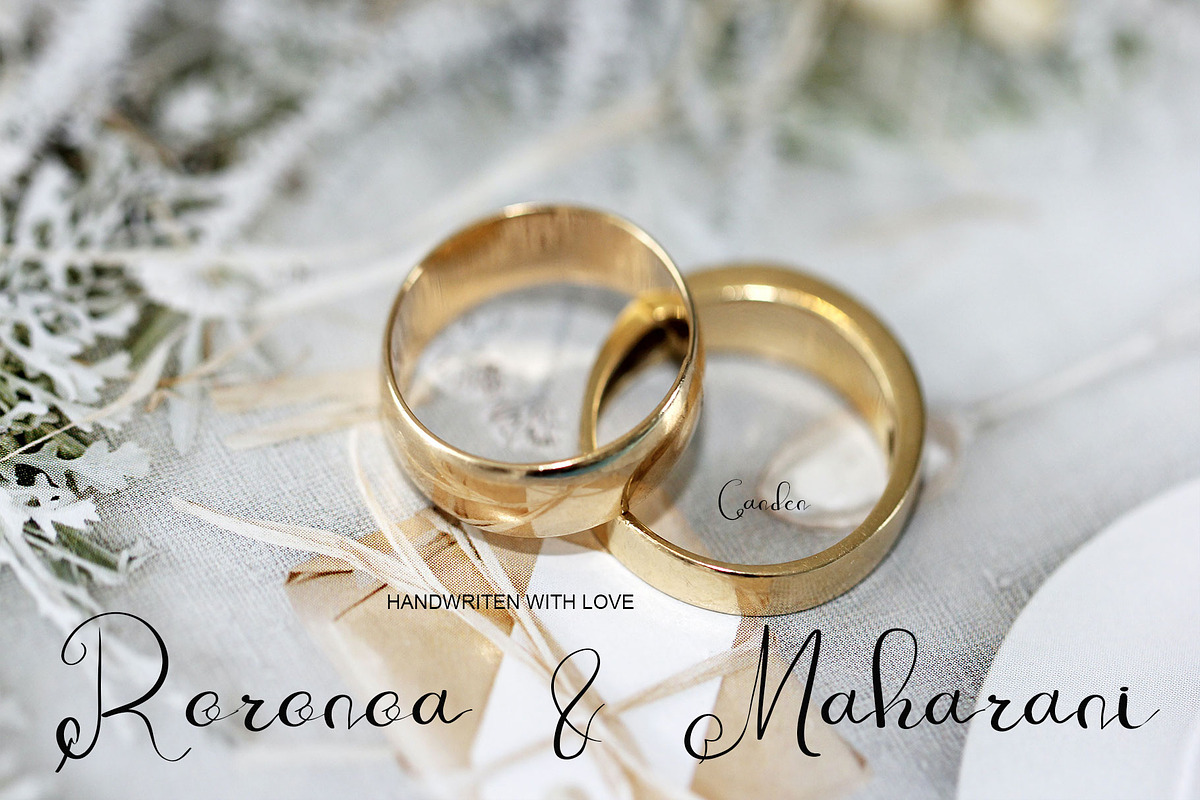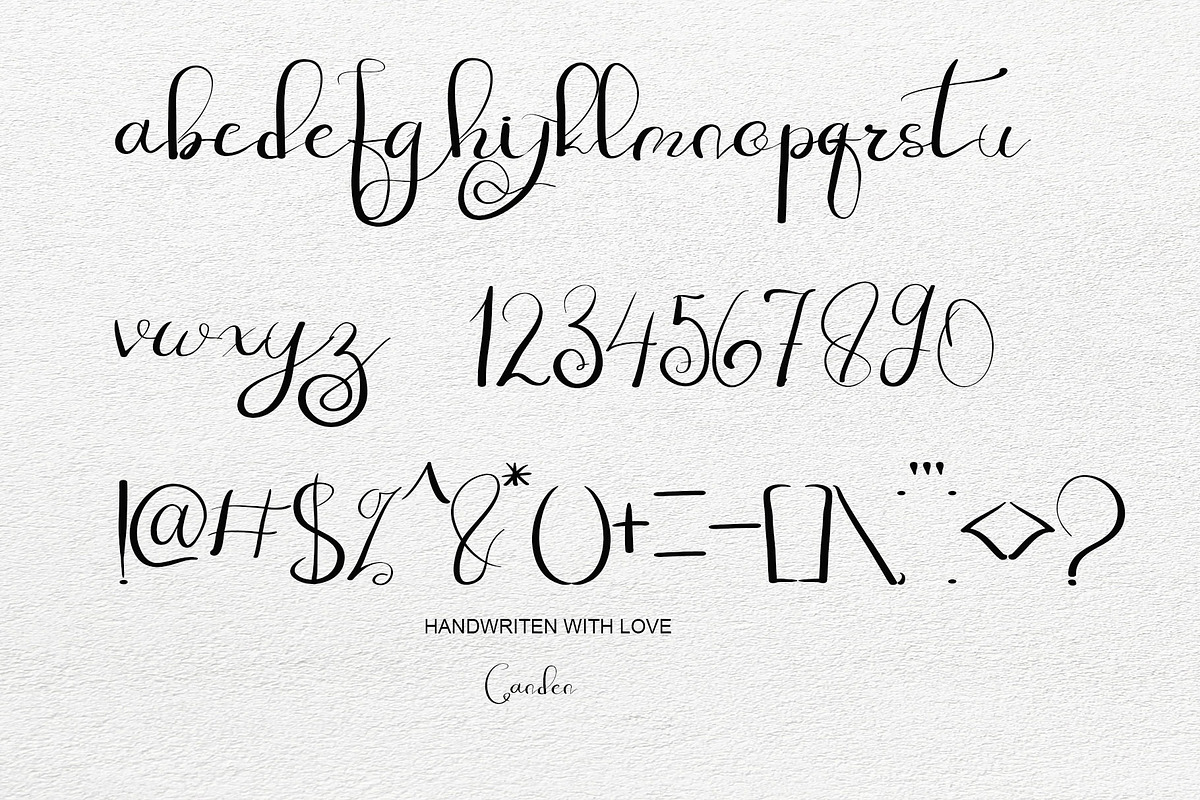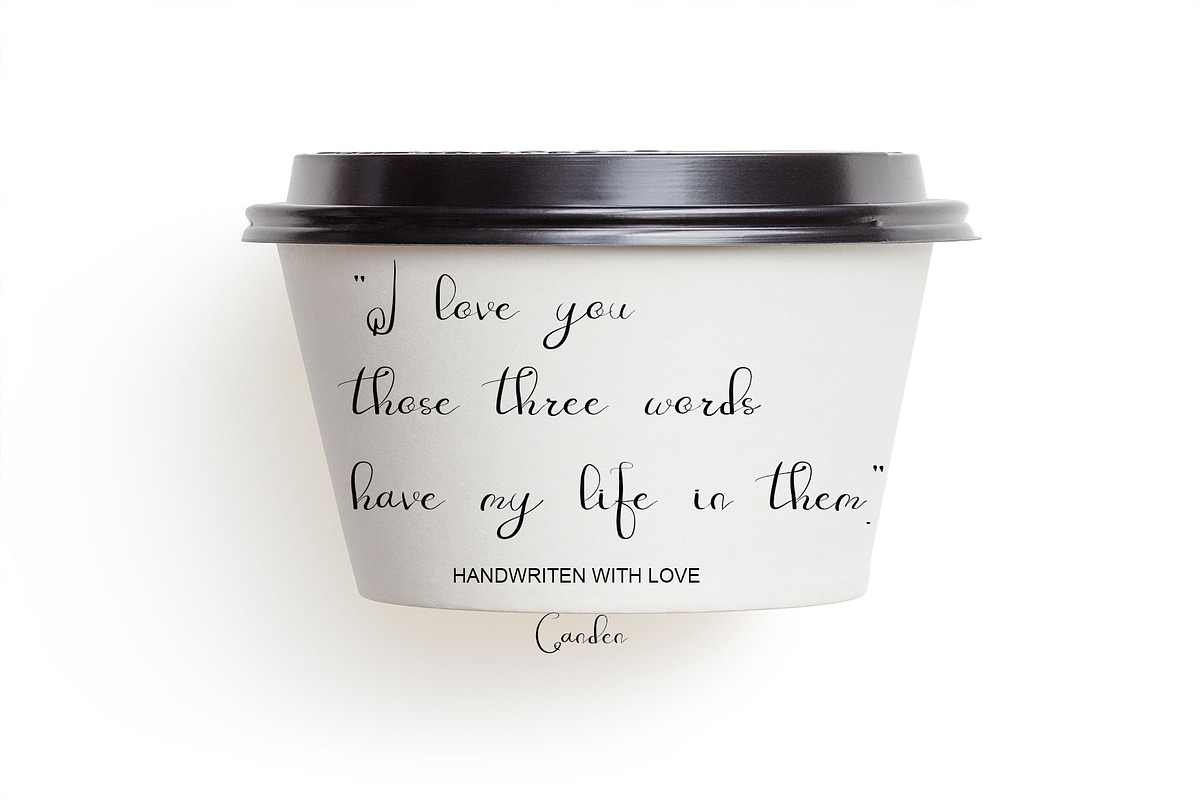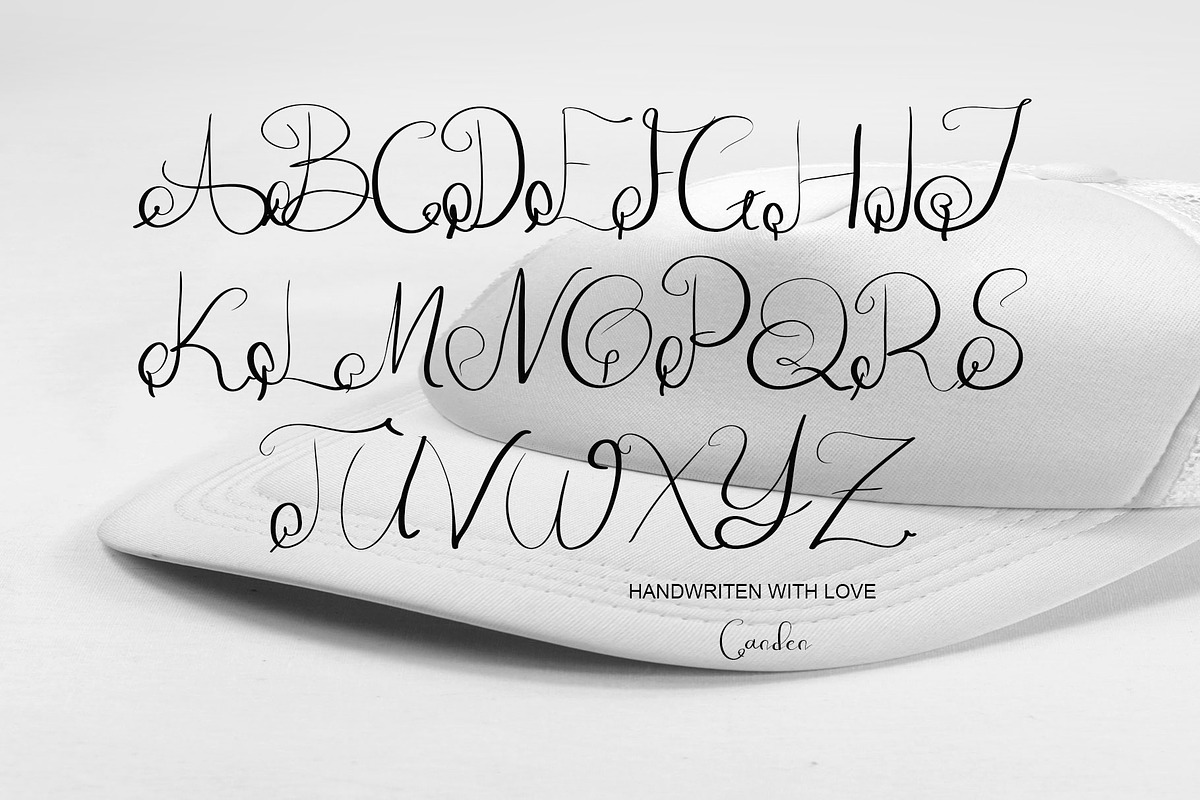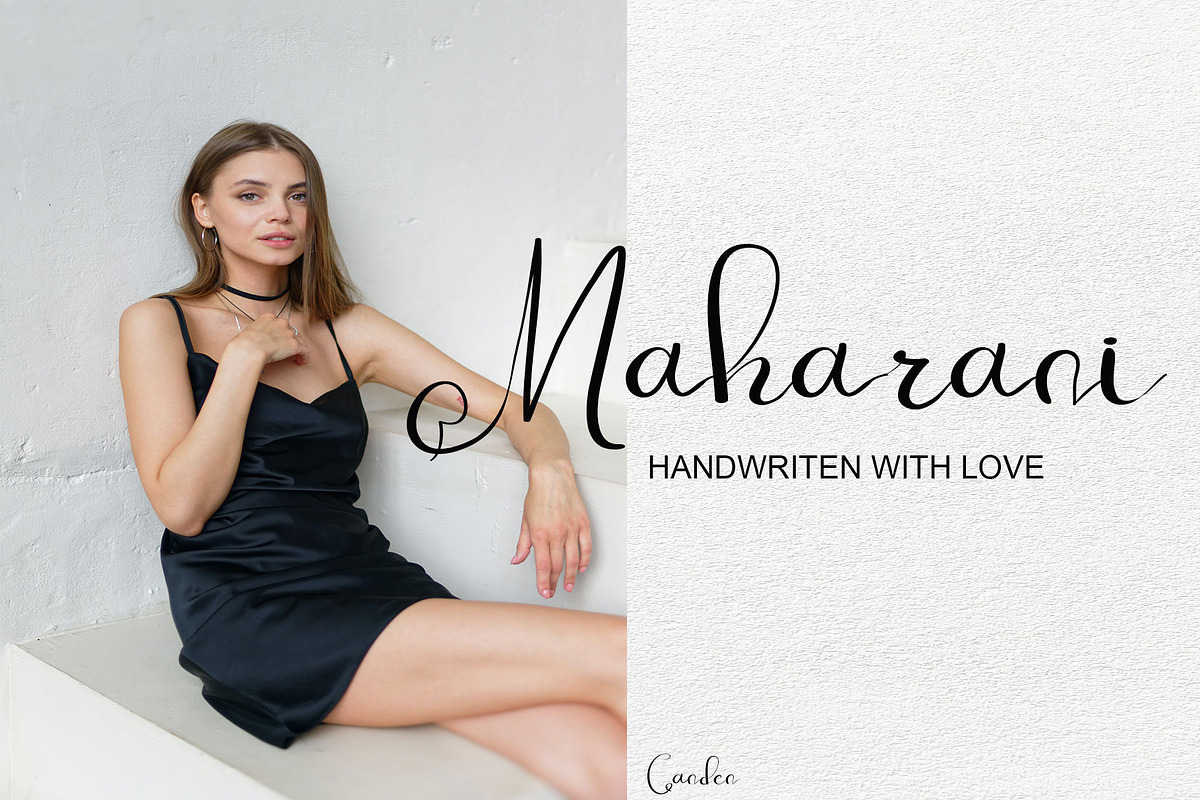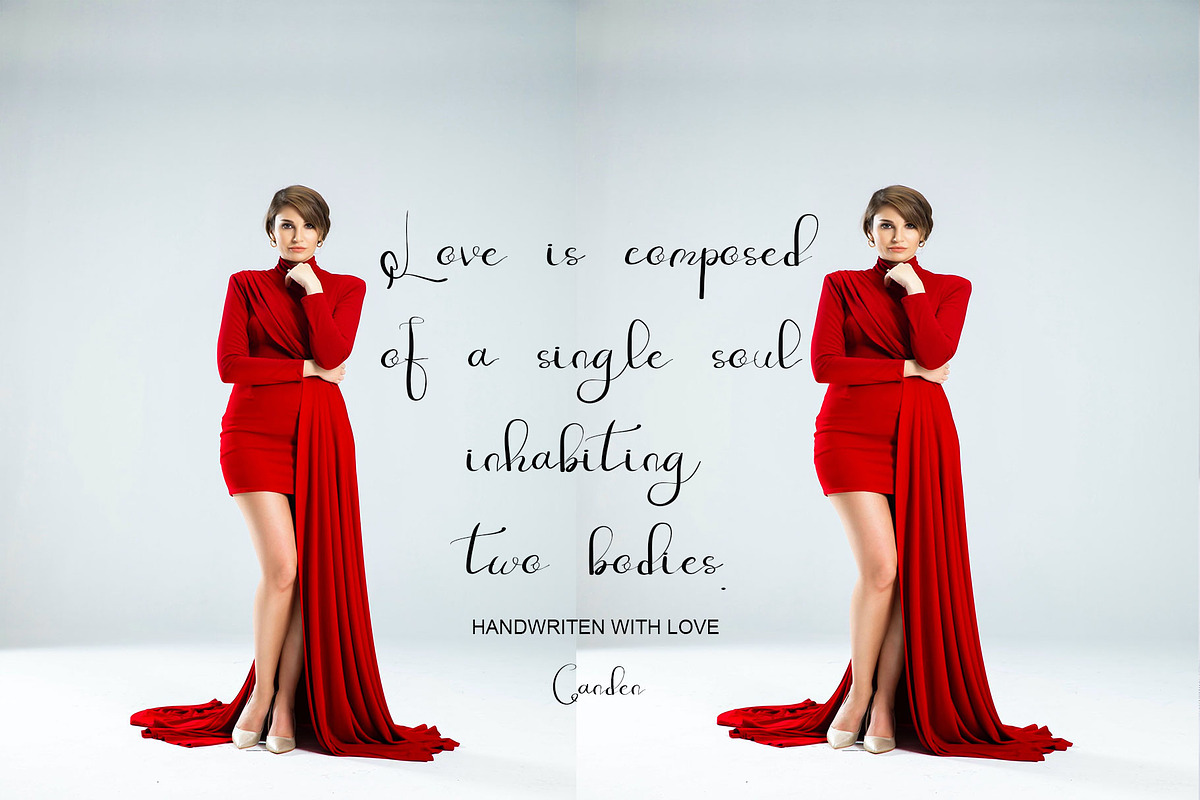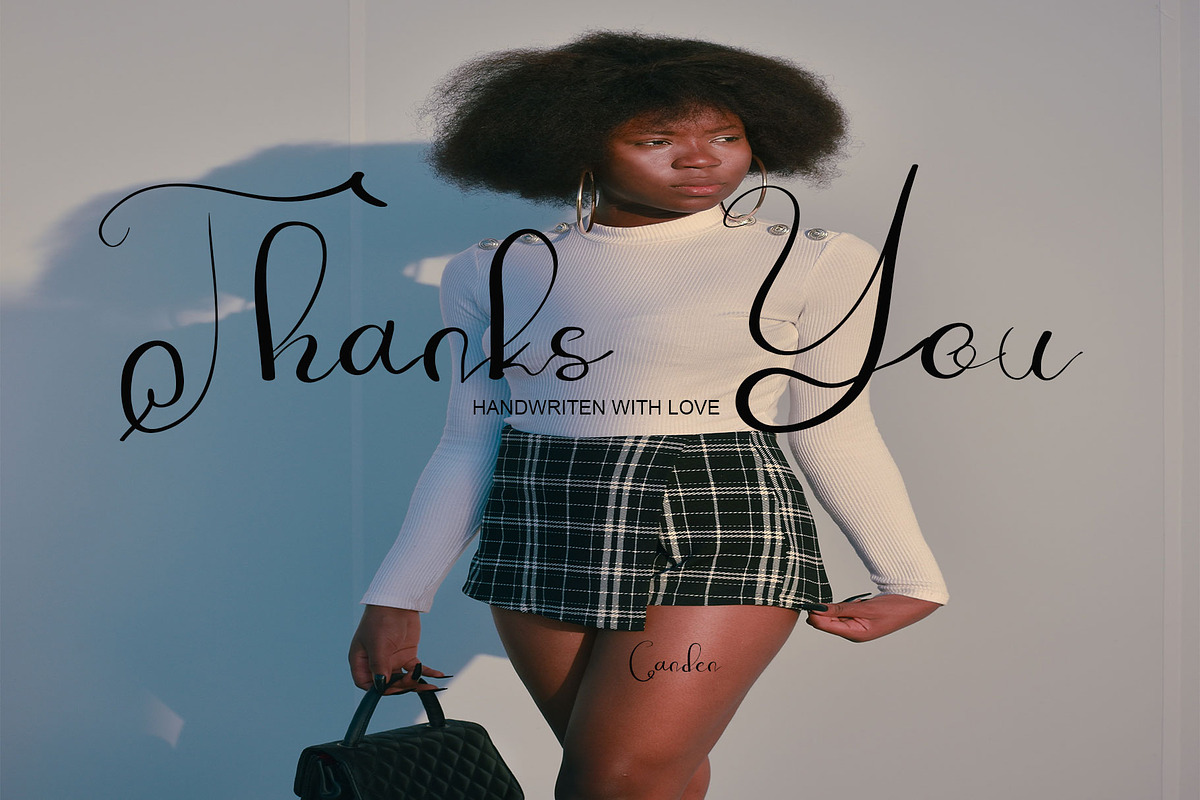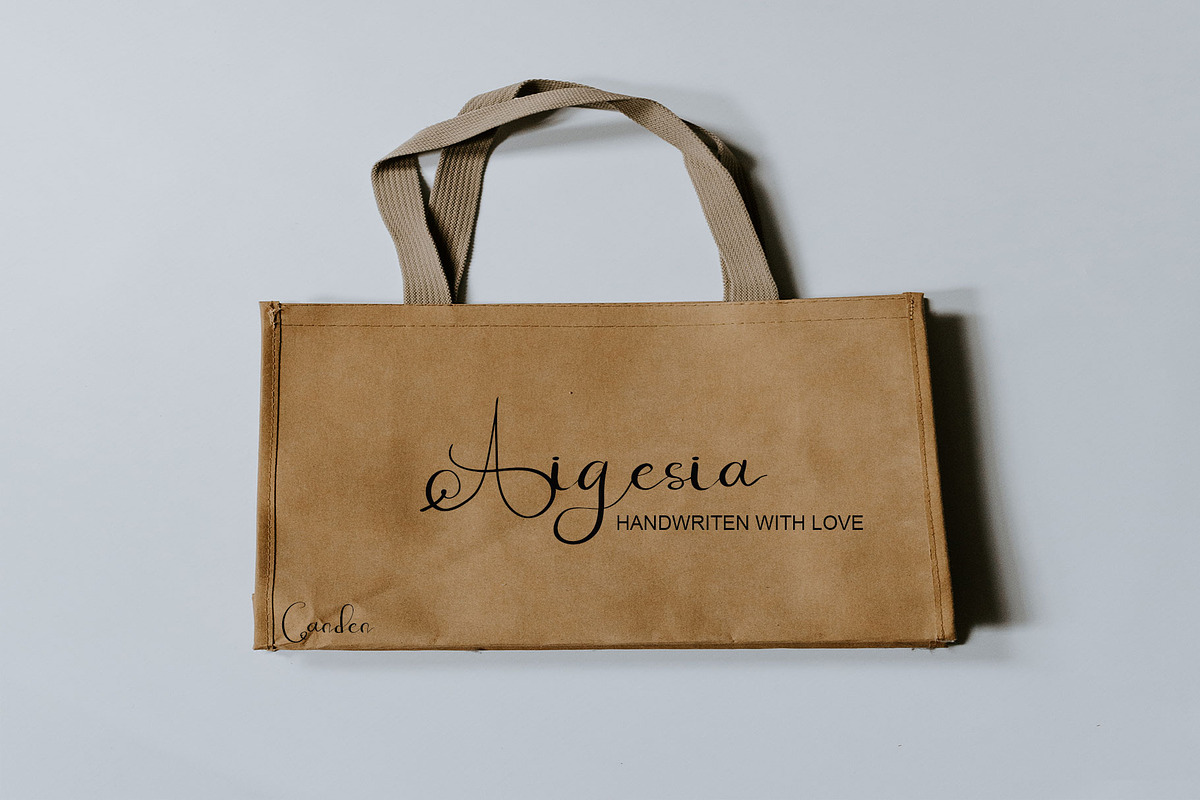
Maharani
Maharani is a beautiful handwritten font. this font is so simple that i write very carefully. Even though it looks simple, this font still looks cool and stylish.
This Fonts are perfect for: logos, branding, wedding invitations, business cards, greeting cards, posters, magazines, social media, proliferate fonts, planner prints and websites.